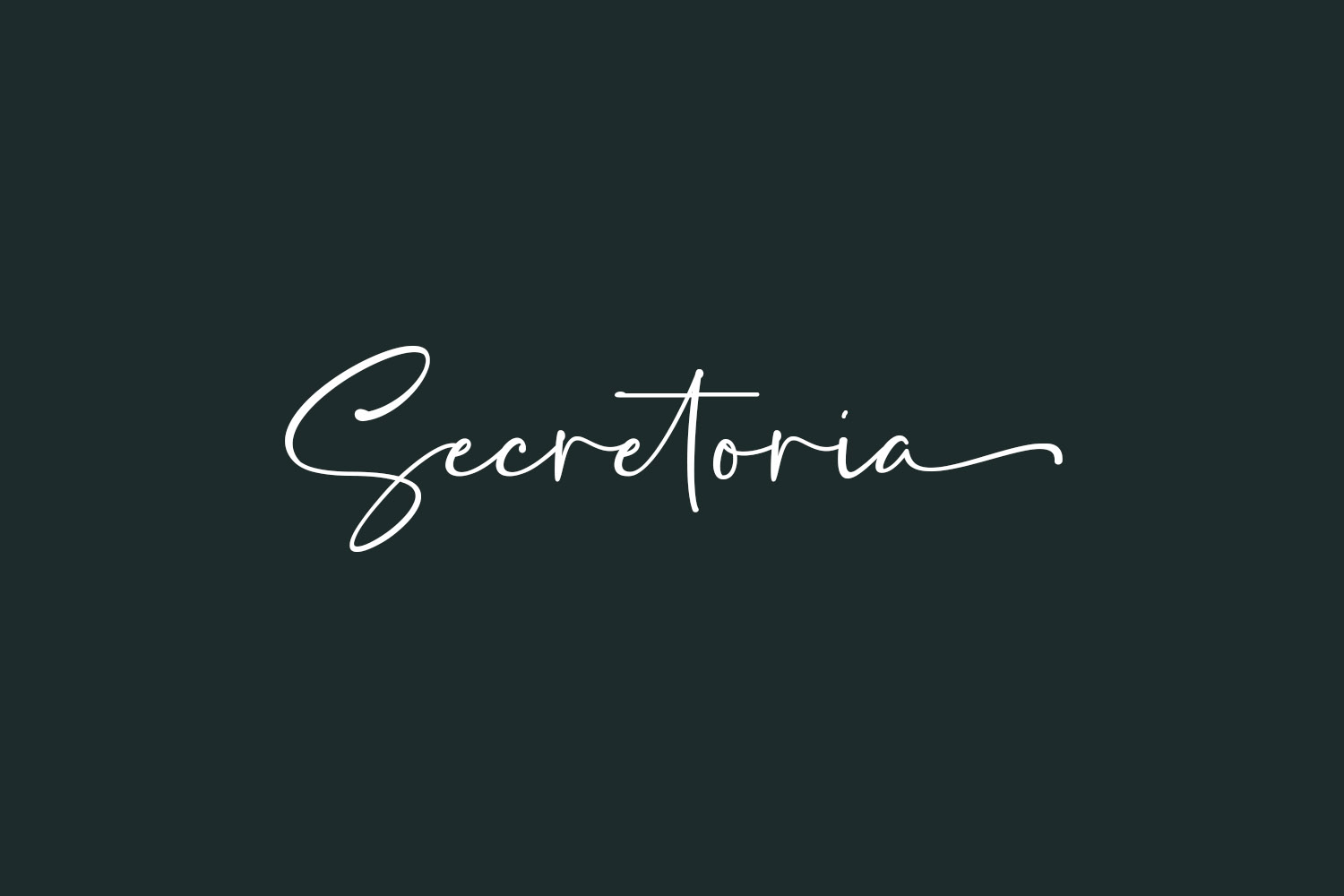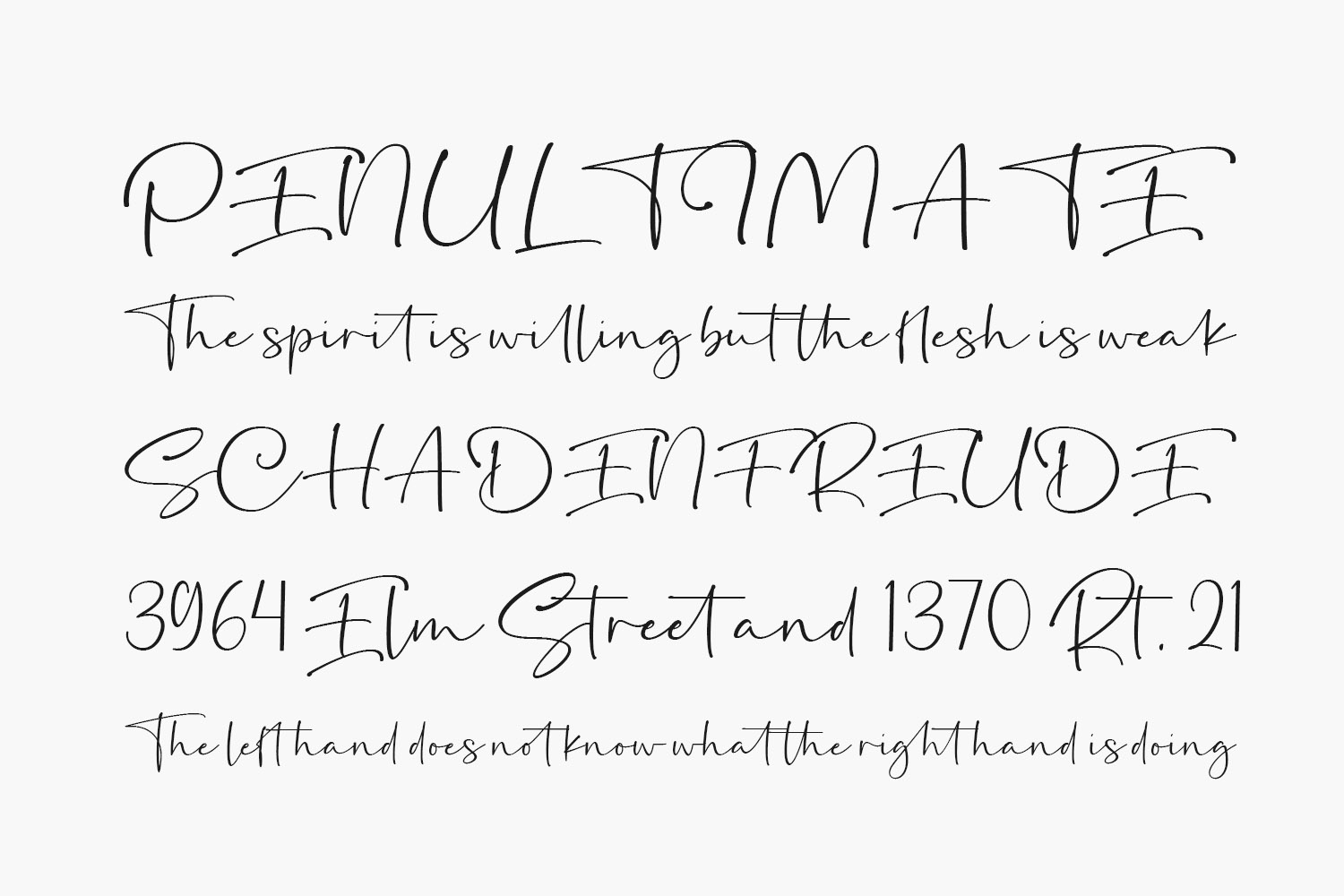
Secretoria Free Font is a thin and fashionable script font. This font is neatly crafted and highly detailed. Secretoria Free Font was designed by Fikryal studio and is free for personal use only. Please purchase the full version for commercial use.